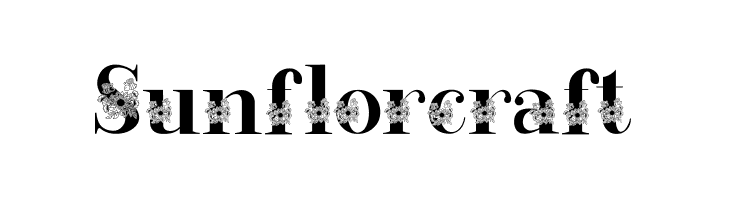
Chaque police phare se distingue par équilibre, lisibilité et polyvalence. Vous trouverez des sans‑serifs modernes, des scripts élégantes, des serifs vintage et des displays minimalistes.
A thin, modern font with clean lines and a minimalist style.
A bold, playful handwritten font with dynamic strokes and a lively appearance.
A playful, bold handwritten font with rounded, irregular characters.
A bold, blocky font with a modern and impactful style.
A modern vintage font with elegant curves and distinct serifs.
A bold, high-contrast italic font with elegant serifs and dynamic movement.
A whimsical and artistic display font with unique illustrated characters.
A bold, angular font with a sharp, geometric style.
A bold, geometric font with a gradient effect and horizontal line detailing.
A playful, handwritten-style font with tall, narrow characters and a whimsical charm.
A bold, condensed typeface with tight spacing and strong visual impact.
A decorative script font with elegant swirls and playful loops.
A bold, decorative font with snow-capped letters and a festive winter theme.
A bold, playful, hand-drawn font with tall, narrow characters.
A modern, italicized font with a clean and elegant style.
A bold, angular, and italic font with a futuristic and dynamic style.
A bold, playful font with a hand-drawn, sketch-like style.
A bold, slanted font with angular cuts and a futuristic style.
A whimsical collection of surreal and playful character designs.
A decorative font with plant-like embellishments entwining each character.
A casual, flowing handwritten font with smooth cursive strokes.
A bold, futuristic font with angular cuts and a semi-condensed style.
A bold, modern font with geometric and sharp angles, ideal for impactful designs.
A flowing, elegant cursive script font with smooth connections and stylish flair.
A bold, futuristic font with geometric angles and a dynamic slant.
A playful, bold script font with a handwritten feel and whimsical flourishes.
A bold, artistic serif font with sharp and rounded elements.